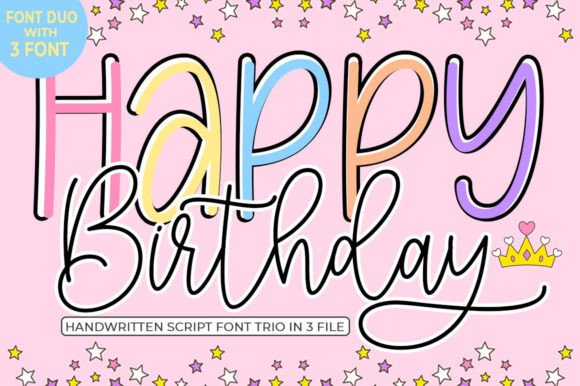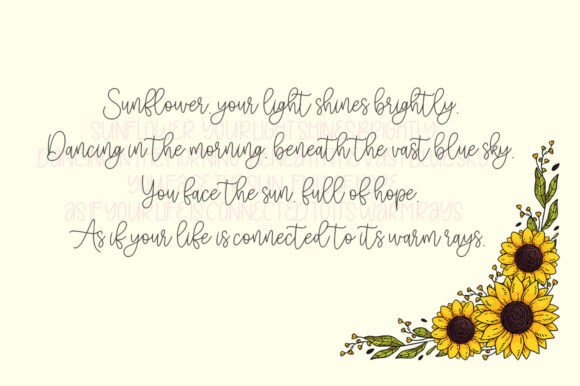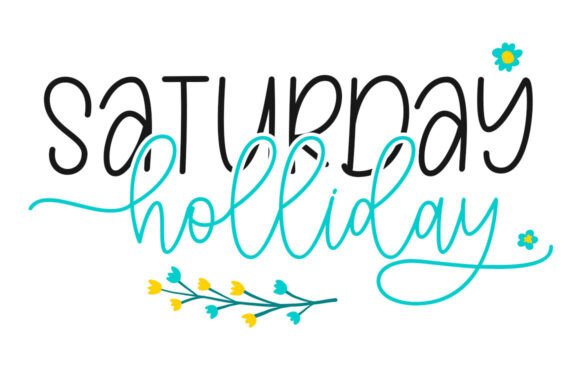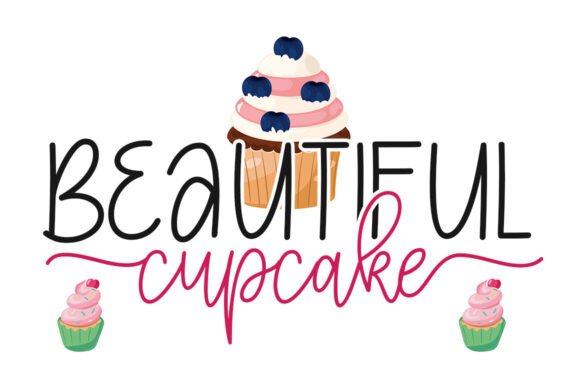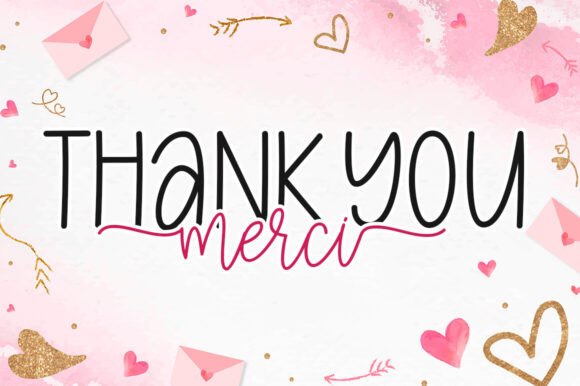
Happy Birthday Font
Introducing the Happy Birthday Font Trio – a contemporary script font characterized by its unique irregular baseline. Exuding a chic and feminine aura, this modern trio is a delightful addition to wedding invites, gratitude notes, inspirational quotes, greeting cards, logos, business cards and beyond. Its distinctive charm shines impeccably when paired with ink or watercolors, seamlessly blending style and elegance. The Happy Birthday Font Trio goes beyond just alphabets, boasting initial letters, terminals, and alternative versions, all while offering extensive language support. Experience the versatility and visual appeal of this font trio, infusing charm into every project.